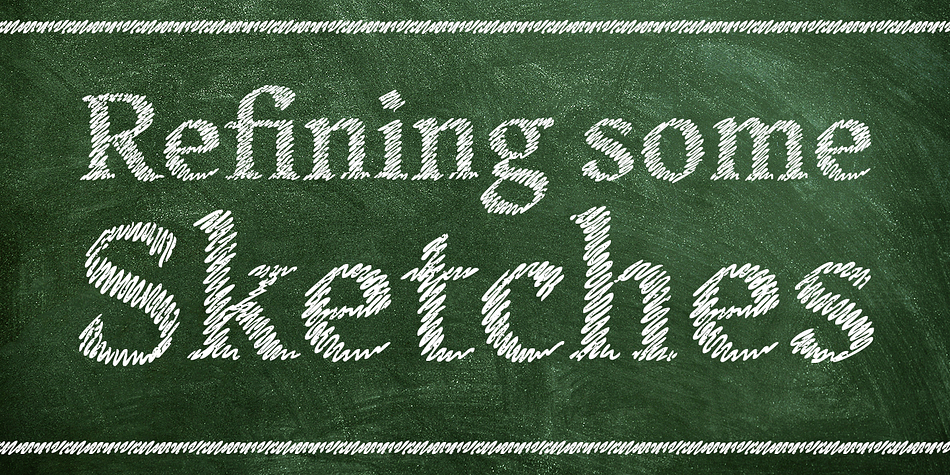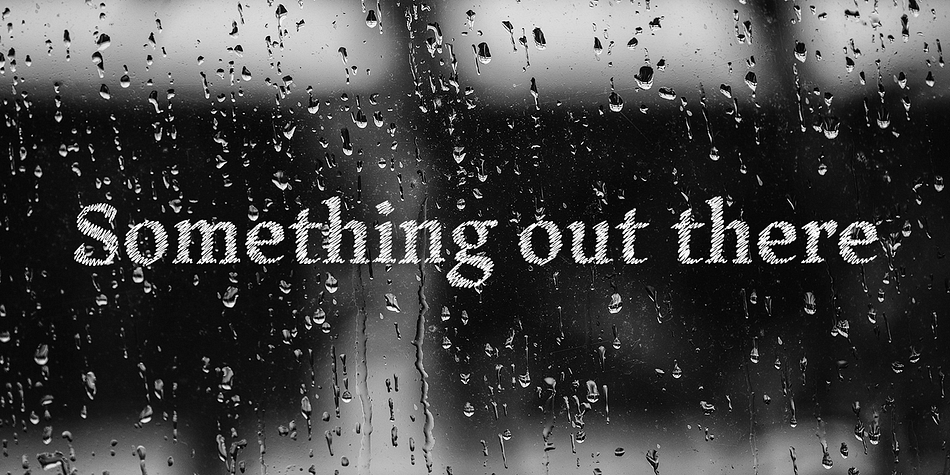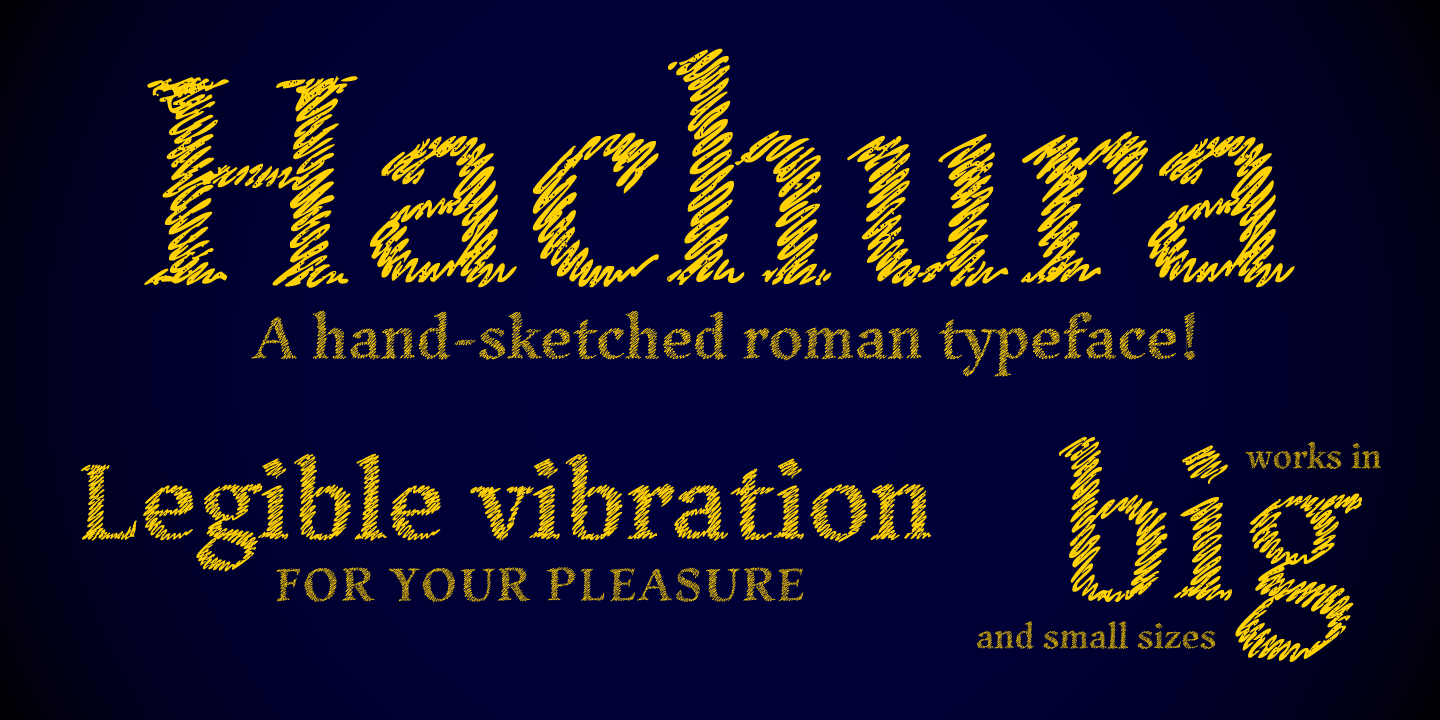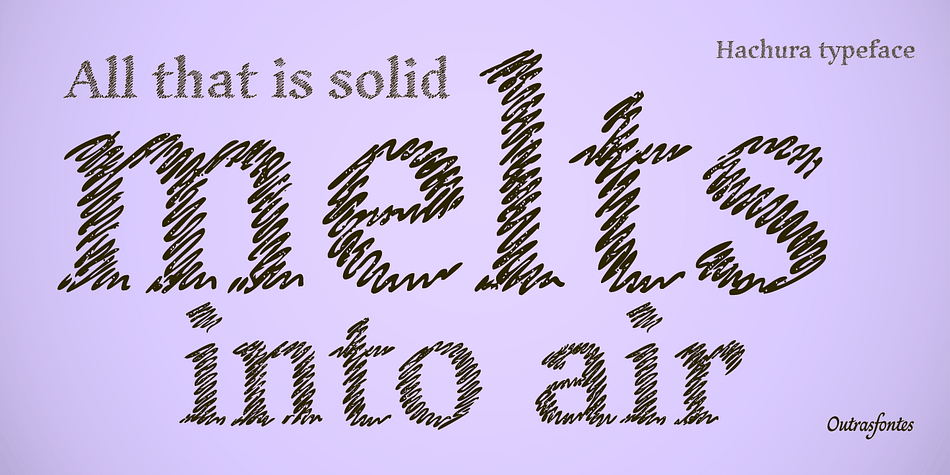
Hachura
Designed by Ricardo Esteves Gomes, Hachura is a display font family published by Outras Fontes.
Hachura is a sketchy typeface. Its general proportions are based on the garalde models, with traditional roman serifs. It was initially made by hand using a drawing technique to create a font that simulates the unfinished aspect of a work in constant progress. This textured face is useful for display sizes, making a very visible presence. Because of its basic dimensions and careful distribution of black and white, it still also very readable in text sizes like 10 or 8 points.